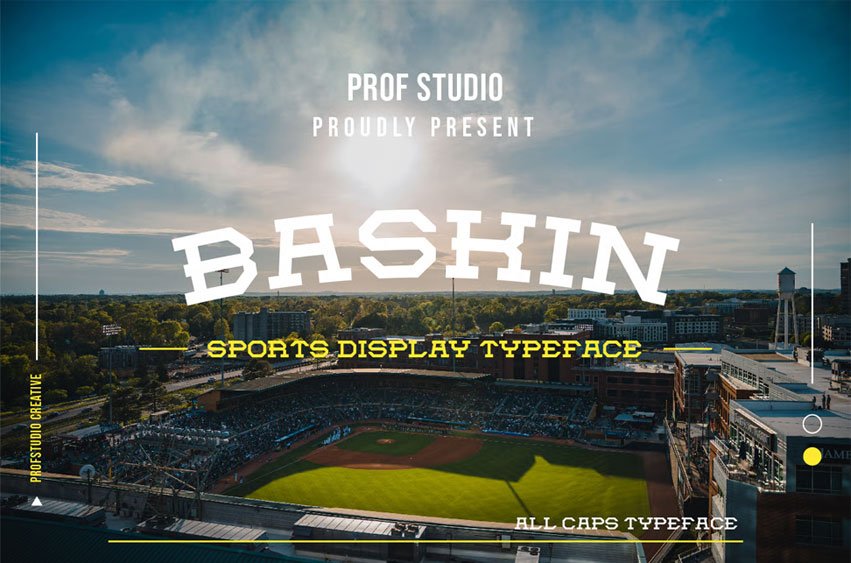
Baskin Font
Baskin Font Sports Display Typeface. Font for Logo, Brand, Headline, Display etc.
• A-Z Uppercase Character Set
• Numerals & Punctuations (OpenType Standard)